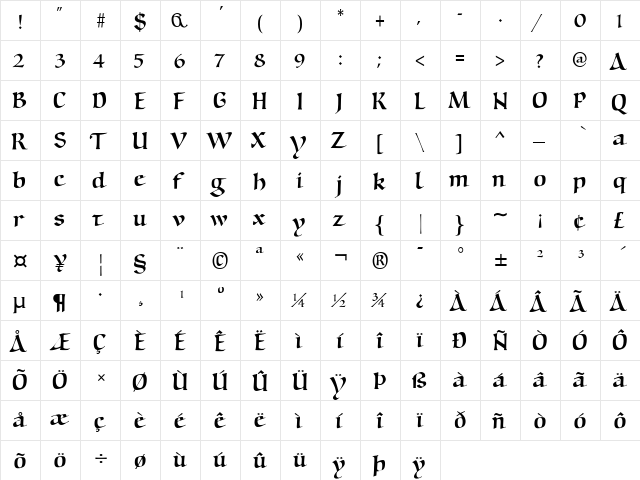
AIWeissenau Regular
Design Context for AIWeissenau Typeface
AIWeissenau is a composed and adaptable typeface that performs quietly and consistently across a wide range of design contexts.